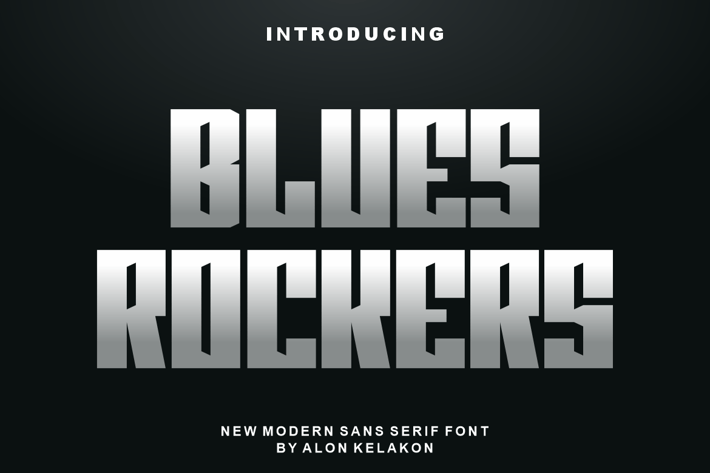
Blues Rockers Font
Blues Rockers Font is unique . Ready to use for your design like labeling, clothing, movie sceen, poster, movie title, gigs, album covers, logos, and much more.